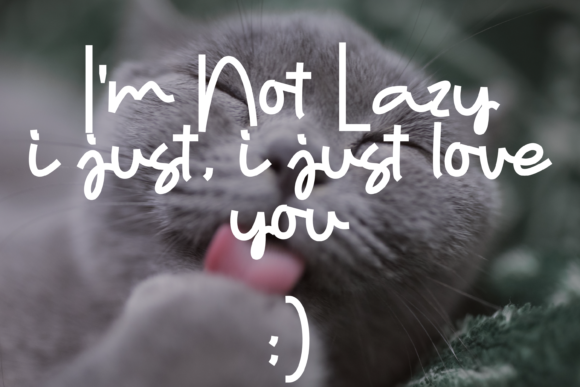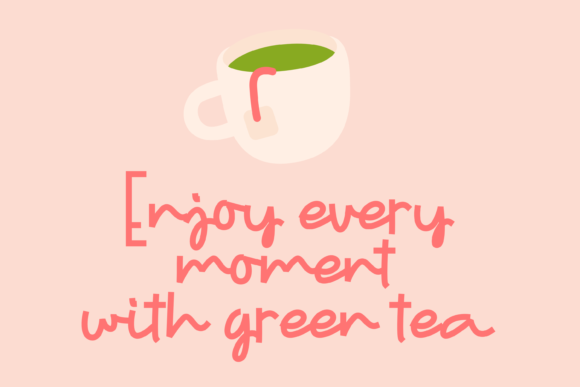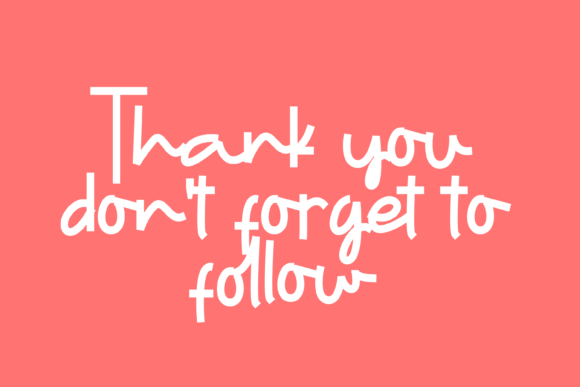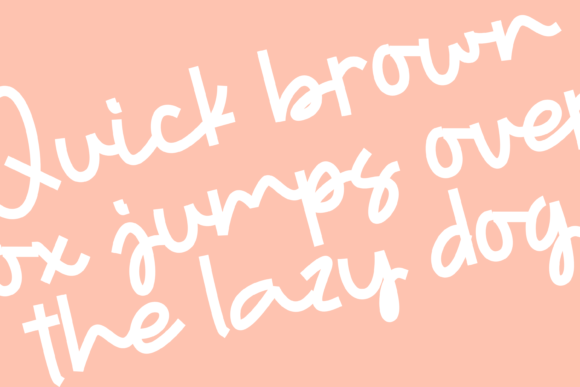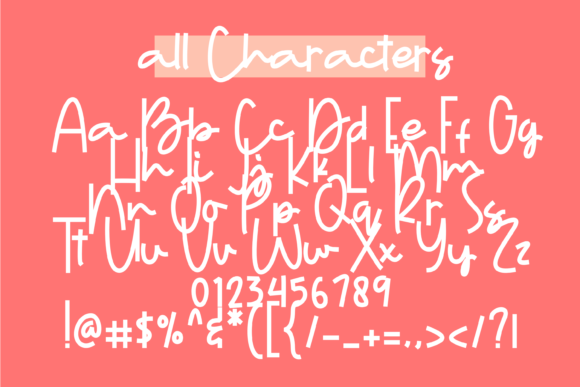
Introducing Every Tuesday: The Ultimate Handwritten Font for Creative Projects
Are you tired of using the same old fonts for your creative projects? Do you want to add a touch of modernity and personality to your designs? Look no further than Every Tuesday, a fun and relaxed handwritten font that’s perfect for crafters, designers, and anyone looking to add a unique flair to their work.
What is Every Tuesday Font?
Every Tuesday is a beautifully crafted handwritten font that’s designed to bring a sense of warmth and approachability to your designs. With its modern and natural look, this font is ideal for a wide range of creative projects, from branding and advertising to packaging and digital media.
Every Tuesday is a versatile font that can be used for both personal and commercial projects. Its relaxed and friendly vibe makes it perfect for designs that need to convey a sense of approachability and personality.
Key Features of Every Tuesday Font
• Handwritten look: Every Tuesday has a natural, handwritten look that’s perfect for designs that need a personal touch.
• Modern feel: This font has a modern feel that’s ideal for designs that need to look fresh and contemporary.
• Versatile: Every Tuesday can be used for a wide range of creative projects, from digital media to print materials.
• Easy to read: This font is highly legible, making it perfect for designs that need to communicate a message clearly.
Why Choose Every Tuesday Font?
There are many fonts available that claim to offer a handwritten look, but Every Tuesday stands out from the crowd. Here are just a few reasons why:
• Unique look: Every Tuesday has a unique and distinctive look that’s sure to grab attention.
• High-quality design: This font is designed with high-quality craftsmanship, ensuring that it looks great in any design.
How to Use Every Tuesday Font
Every Tuesday is easy to use and can be incorporated into a wide range of creative projects. Here are just a few ideas to get you started:
• Branding and advertising: Use Every Tuesday to create eye-catching logos, ads, and marketing materials that stand out from the crowd.
• Digital media: This font is perfect for digital media, including social media graphics, blog posts, and website designs.
• Packaging: Add a personal touch to your packaging designs with Every Tuesday.
• Crafting and DIY projects: This font is ideal for crafters and DIY enthusiasts who want to add a unique touch to their projects.
Tips for Using Every Tuesday Font
Here are a few tips for getting the most out of Every Tuesday:
• Experiment with different sizes: Every Tuesday looks great in a variety of sizes, so don’t be afraid to experiment and find the perfect size for your design.
• Pair with other fonts: This font pairs well with other fonts, so try combining it with other fonts to create a unique look.
• Use it consistently: Use Every Tuesday consistently throughout your design to create a cohesive look.
Every Tuesday is a fun and relaxed handwritten font that’s perfect for creative projects that need a modern look combined with a natural, handwritten touch. With its unique look, high-quality design, and versatility, this font is ideal for designers, crafters, and anyone looking to add a personal touch to their work.